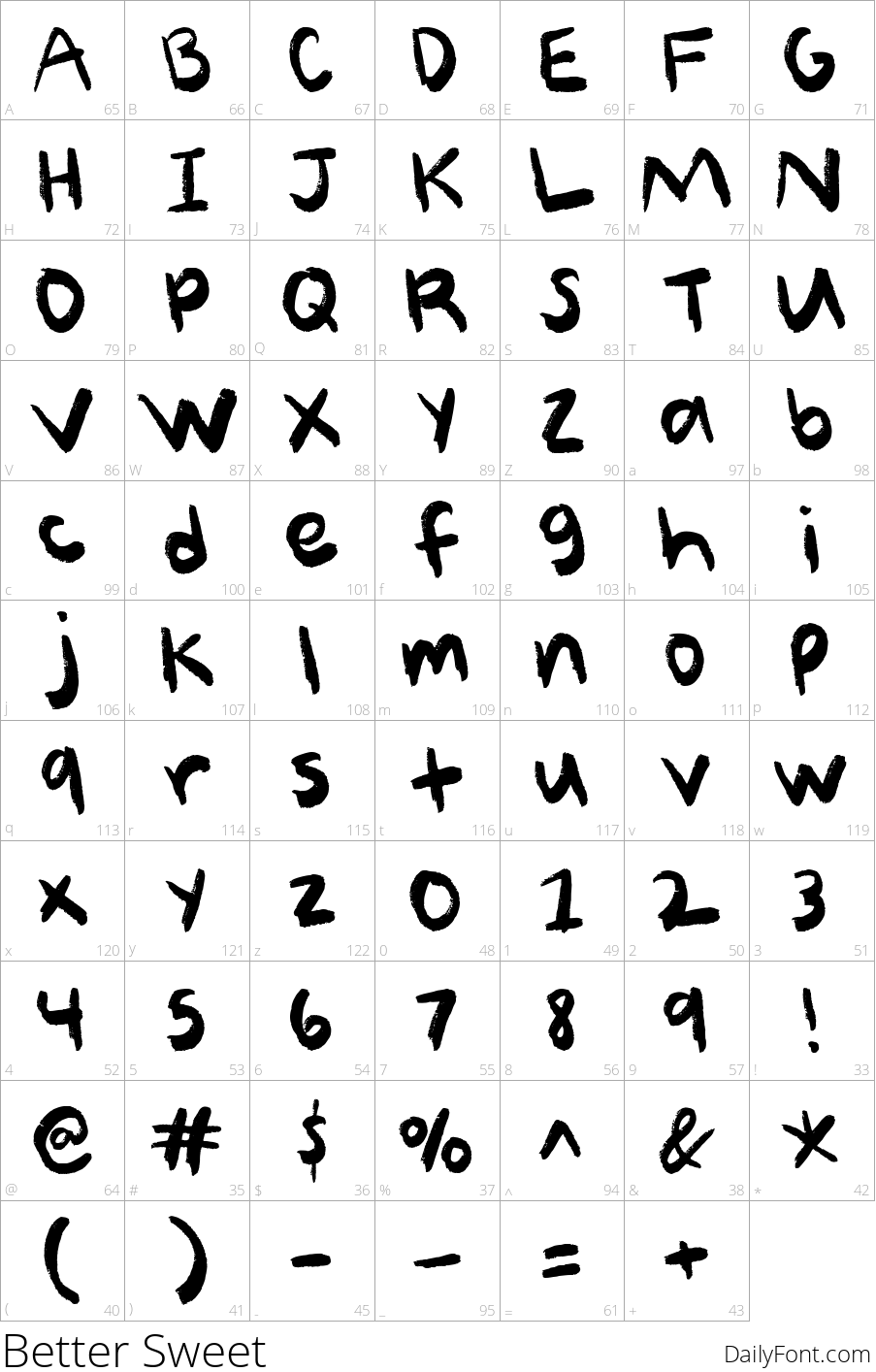
Better Sweet
Better Sweet is a captivating handwritten font that combines charm and elegance to perfection. Its handcrafted nature adds a personal touch that instantly draws people in. With smooth curves and well-balanced letterforms, this font exudes sophistication, making it ideal for various design projects, from formal invitations to branding materials.
Versatility is at the core of Better Sweet's appeal. It seamlessly adapts to a wide range of creative concepts, making it perfect for letterheads, titles, stationery, and packaging. Whether you're a graphic designer or a creative enthusiast, Better Sweet empowers you to infuse your projects with character and emotion.
Express yourself with Better Sweet's expressive strokes, evoking genuine emotions that leave a lasting impact on your audience. User-friendly and accessible, this font makes creativity accessible to all. Join our vibrant community and redefine the way you express your creativity with Better Sweet today. Elevate your designs and let your crafty ideas shine with this enchanting handwritten font.